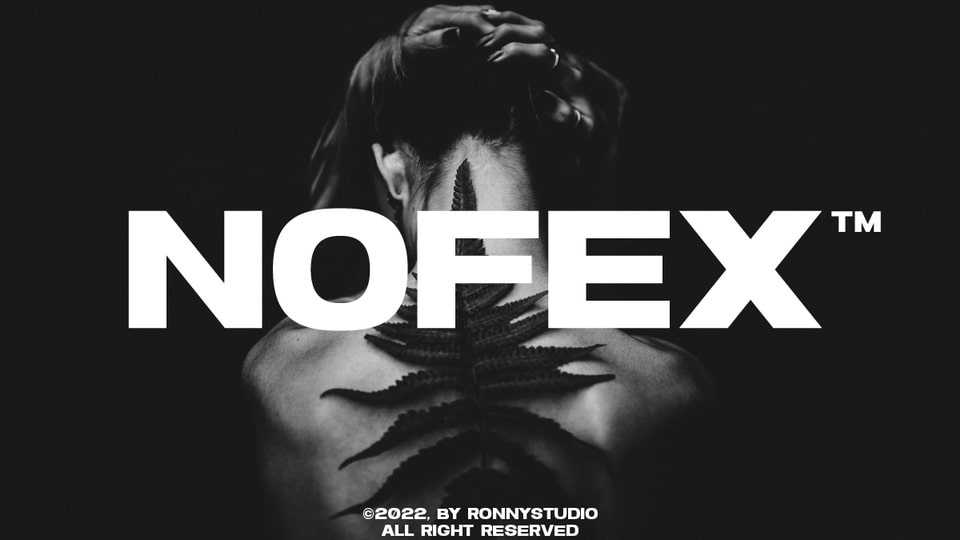
Download Nofex font, an all caps display typeface that has a very bold body, but still has high contrast. Nofex font looks very modern when paired with contrasting design colors.